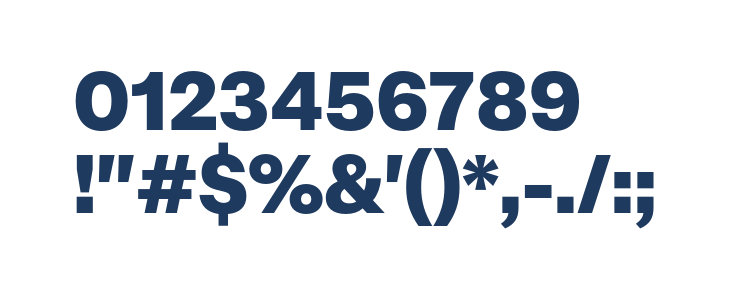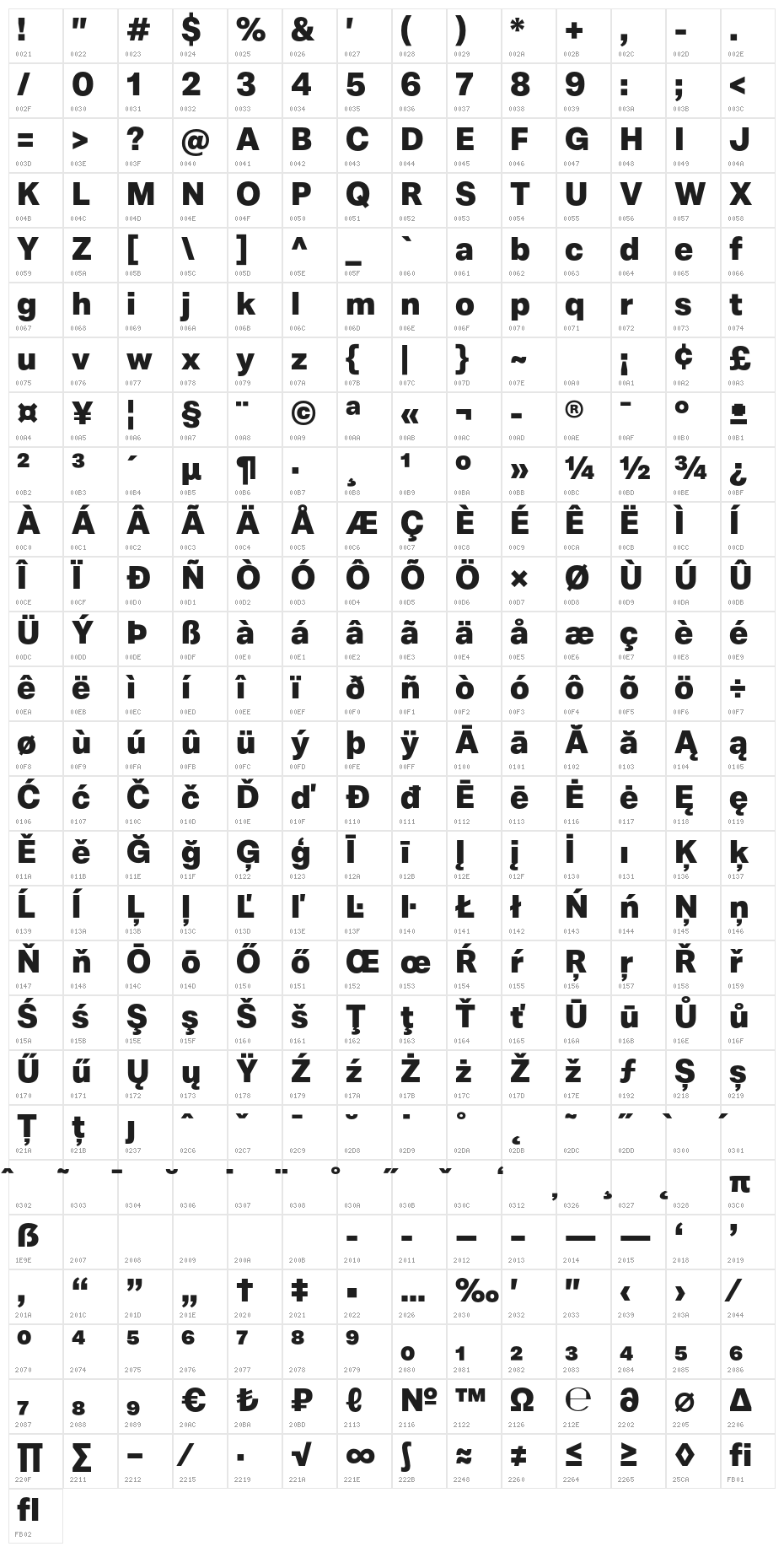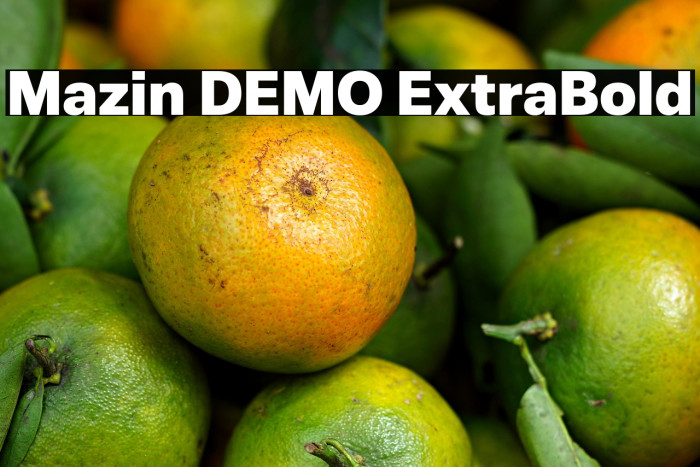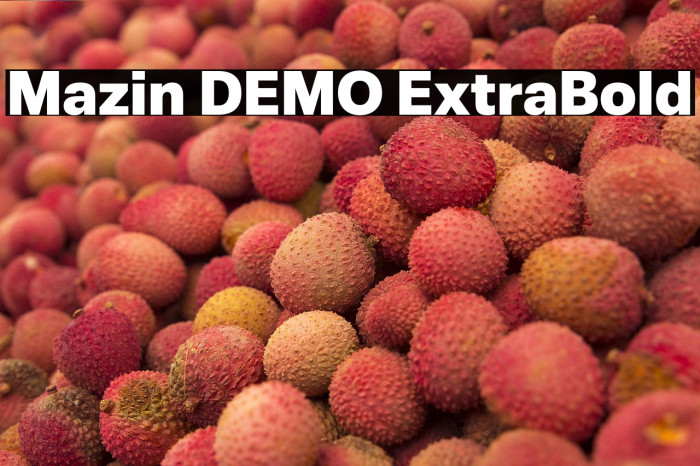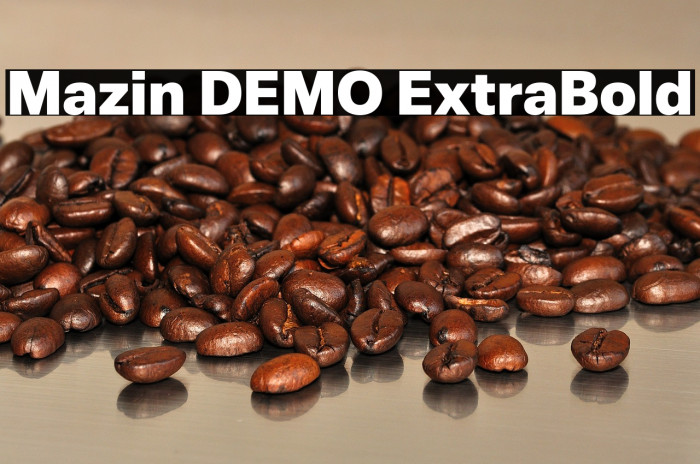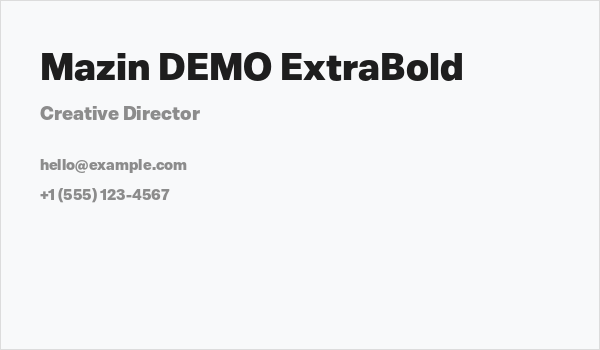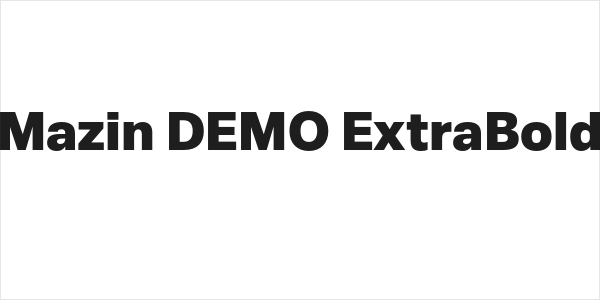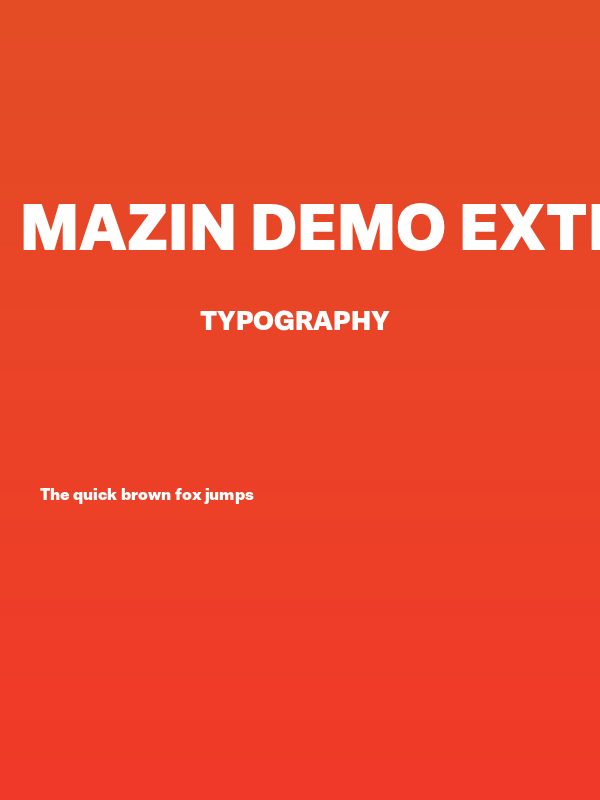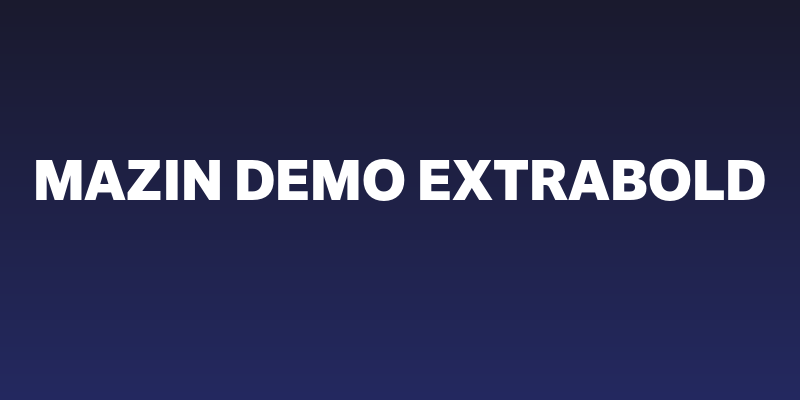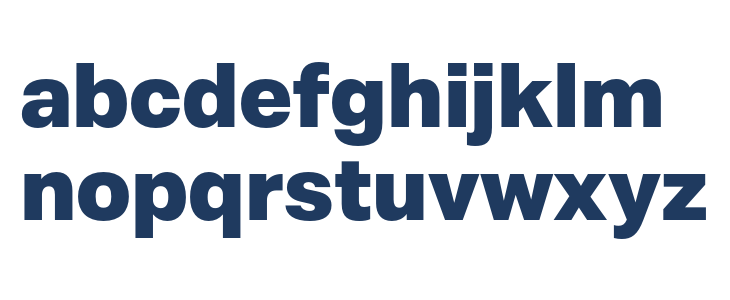
Mazin DEMO ExtraBold Font
Mazin DEMO ExtraBold Description
This typeface features a bold and assertive design, characterized by thick strokes and a strong presence. The letters are evenly spaced, providing a balanced and cohesive look. The uppercase and lowercase letters maintain a consistent weight, ensuring readability and impact. The numerals are clear and robust, matching the overall boldness of the alphabet. Special characters are well-integrated, offering versatility for various design needs. This font is ideal for making a statement, with its powerful and modern aesthetic.